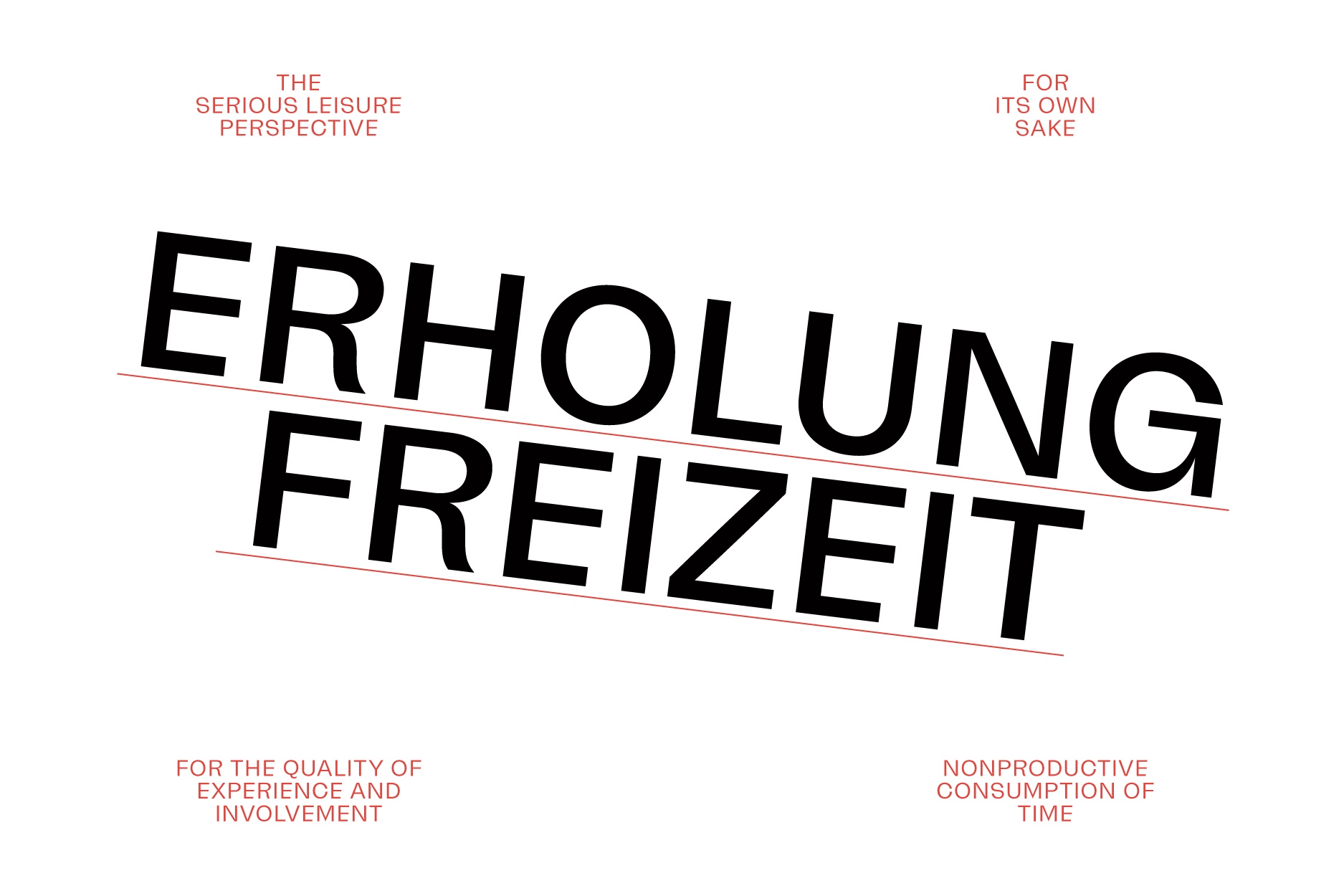
Freizeit Font
This relaxed typeface is perfect for leisure activity branding, recreational center signage, vacation resort materials, hobby shop graphics, weekend event promotions, outdoor recreation marketing, casual dining restaurant menus, and lifestyle wellness campaigns. Freizeit Font delivers carefree sophistication in applications where leisure enjoyment and recreational freedom are essential for connecting with audiences seeking authentic relaxation and quality life experiences away from work pressures.
What makes Freizeit Font so exciting is its masterful embodiment of leisure culture and recreational ease through comfortable typography. The font features relaxed letterforms with casual characteristics that suggest weekend freedom and unhurried enjoyment. Each character has been thoughtfully designed to convey approachable comfort while maintaining excellent readability across various recreational applications. The typeface's leisurely personality creates immediate associations with vacation time and personal fulfillment, making it perfect for brands dedicated to helping people enjoy their free time and pursue meaningful recreational activities through their visual identity.
The Freizeit Font includes comfortable style variations: Regular, Bold, Light, and Condensed versions. This recreational collection provides designers with versatile tools to create relaxed layouts and establish welcoming typographic treatments that capture the essence of leisure enjoyment and recreational satisfaction. Each style maintains the font's inherent comfort while offering different emphasis levels for various leisure applications and relaxation-focused design themes.
Whether you're developing recreational business identities, creating vacation marketing materials, or designing leisure lifestyle campaigns, Freizeit Font Free Download offers the comfortable aesthetic that resonates with people seeking genuine relaxation and recreational fulfillment. Its approachable character makes it particularly suitable for recreation centers, vacation destinations, hobby retailers, and leisure service providers. The font's welcoming presence ensures emotional connection in both recreational signage and lifestyle marketing applications, while its versatile design adapts beautifully to casual, outdoor, and wellness-oriented aesthetic approaches.
This comfortable typeface represents the perfect solution for designers who understand the importance of leisure authenticity in creating meaningful connections with recreation-minded audiences seeking genuine relaxation and fulfilling free time experiences.